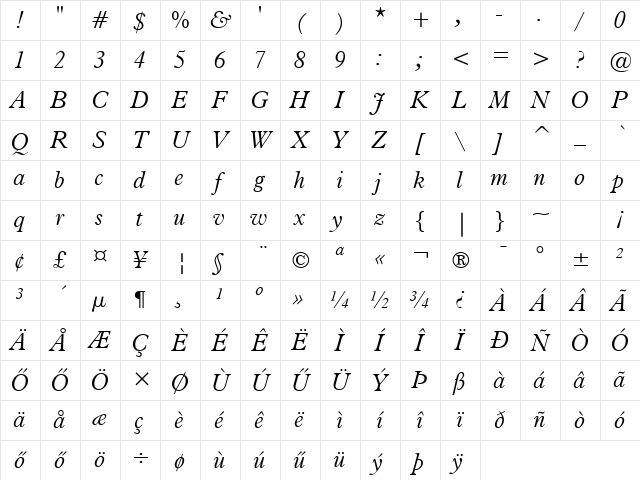
Aldine-721 LHU Light Italic
Design Context for Aldine-721 LHU
Aldine-721 LHU is a composed and adaptable typeface that performs quietly and consistently across a wide range of design contexts. The slanted form adds forward momentum and visual energy. Its slender proportions lend an understated elegance to any composition.
Pro Tip: Use Aldine-721 LHU for emphasis, pull quotes, and subheadings where its slanted energy can add rhythm to the layout.